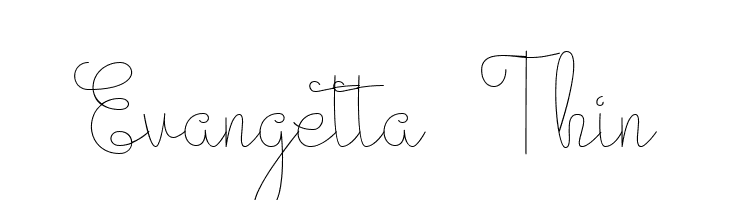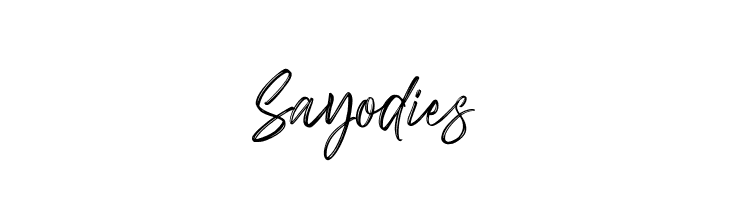
A dynamic and fluid script font with elegant, flowing letterforms.
A bold, italicized font with a playful and dynamic style.
A bold, futuristic font with a gradient effect and sharp, angular design.
A bold, blackletter font with sharp, angular lines and high contrast.
A playful, spooky font with a dripping slime effect, perfect for Halloween themes.
A bold, hand-drawn font with expressive, irregular strokes.
A bold, outlined, semi-italic font with a playful and modern style.
A bold, angular font with a futuristic and aggressive style.
A dynamic, brush-style cursive font with artistic flair.
An elegant, high-contrast script font with flowing, cursive strokes.